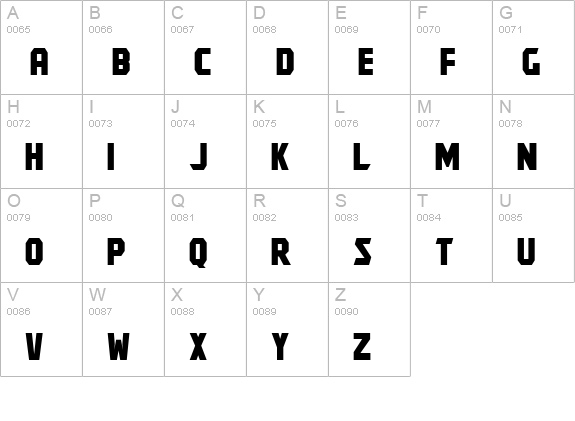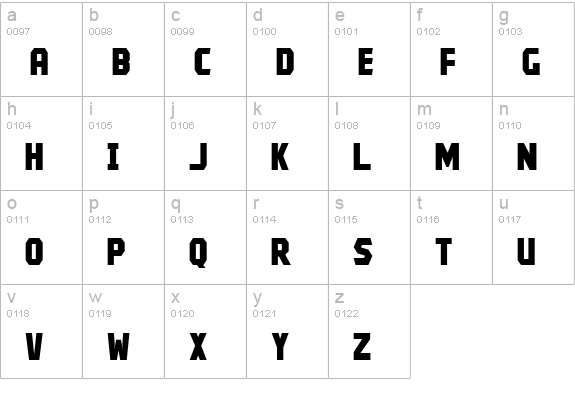
Kroftsmann Font Details
Introducing Kroftsmann font, a stylish and versatile typeface that is sure to make your designs stand out. With its bold and modern look, Kroftsmann is perfect for a wide range of projects, from branding to packaging to social media graphics. This unique font features clean lines and a contemporary feel that will bring a touch of elegance to any design. Whether you're working on a poster, logo, website, or any other project, Kroftsmann will help you make a bold statement. The best part? Kroftsmann font is completely free to download at FontsMarket.com. So go ahead and add this beautiful font to your collection today and start creating stunning designs that will captivate your audience.